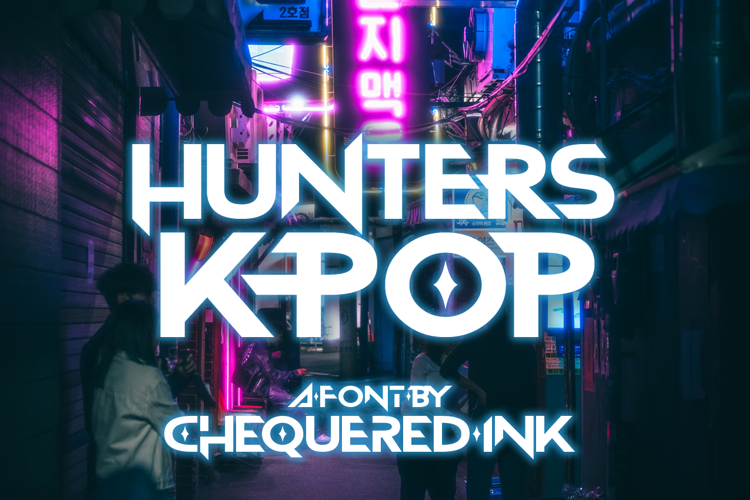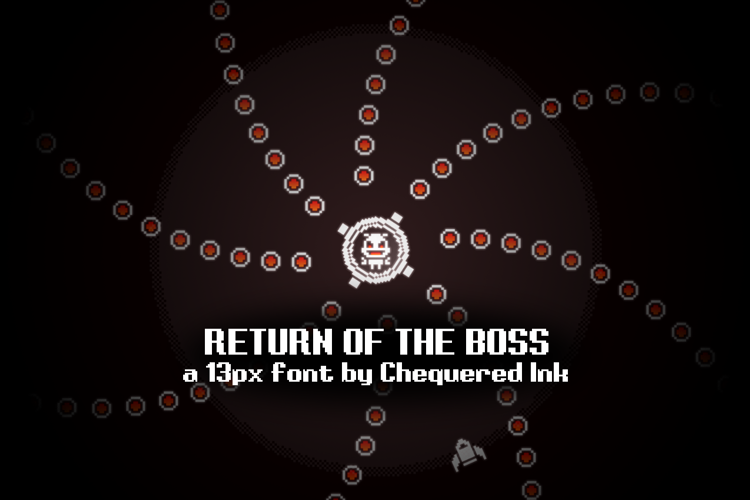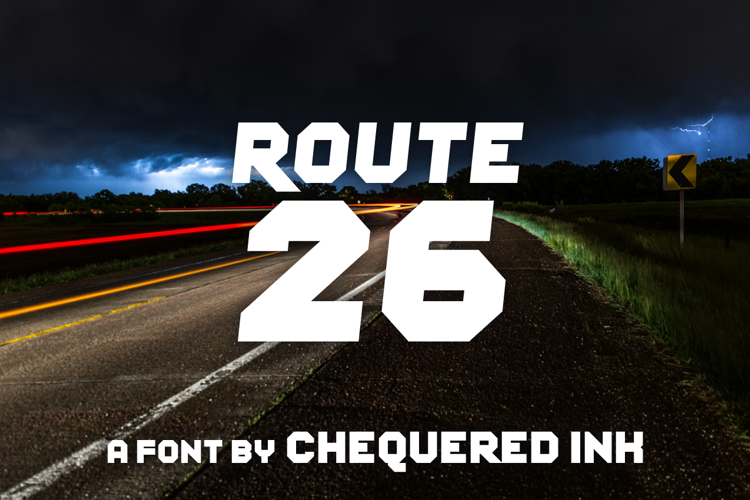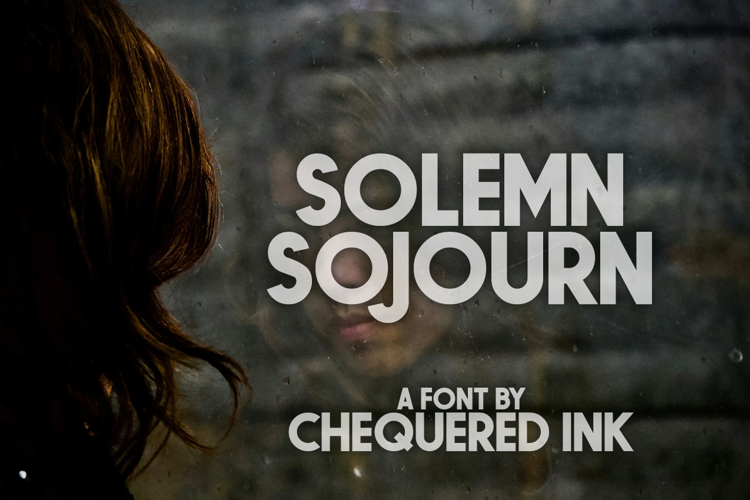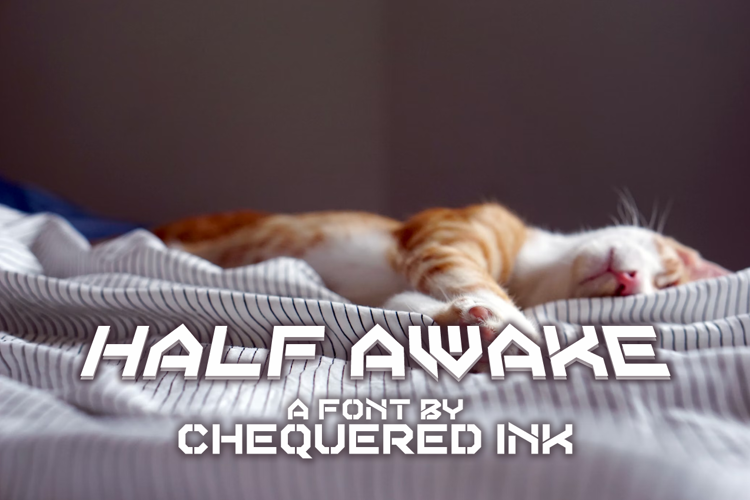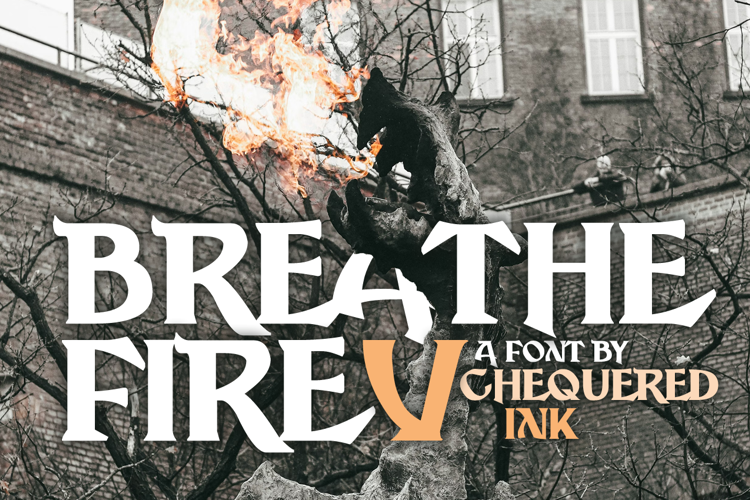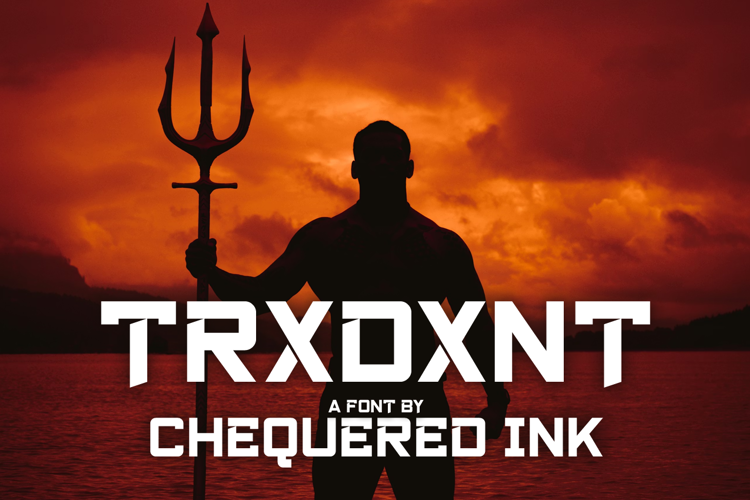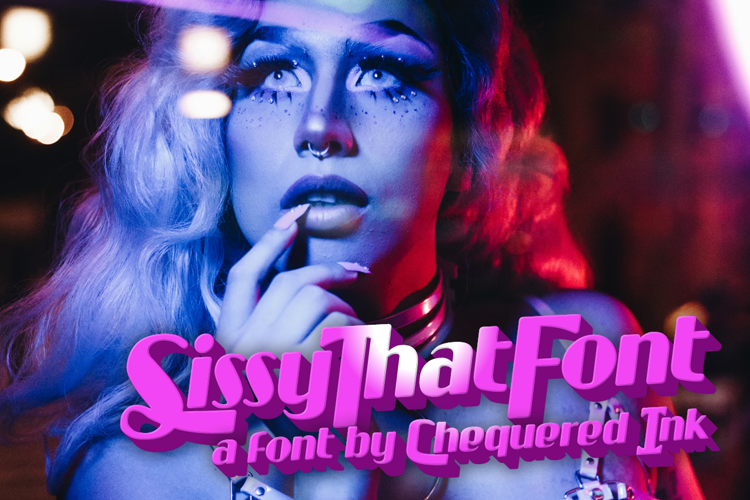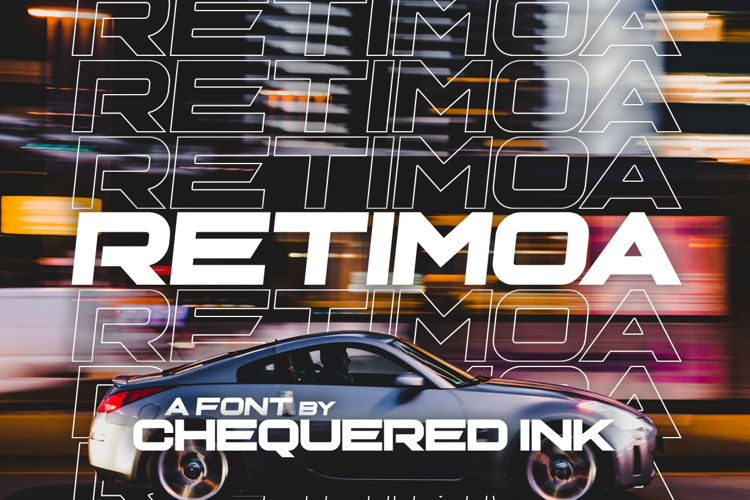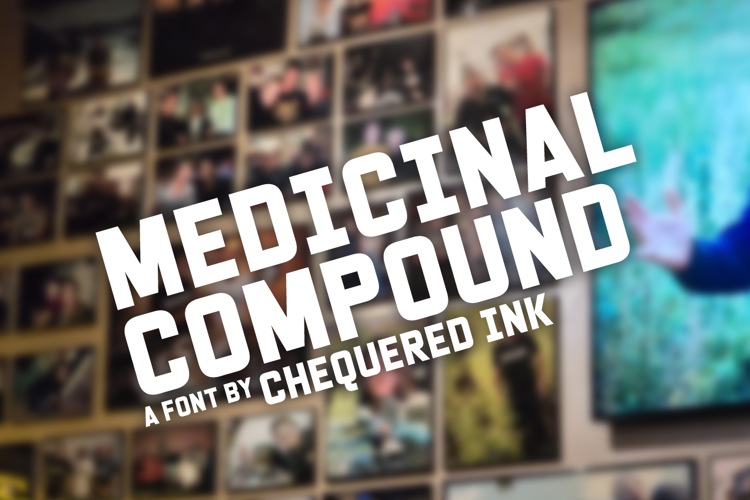
10 New Fonts Added To Our All Fonts Pack
1. Hunters K-Pop
A not-very-subtle tribute to a very popular animation. That's the most we'll say, if you know you know!
2. Return of the Boss
To celebrate the upcoming 10th anniversary of our game Gyro Boss, we created this brand new pixel font for use in your own games.
3. Route 26
A chonky font with bevelled corners, great for use on road signs in the background of your projects - hence the name.
4. Solemn Sojourn
A chunky all-caps poster font, intended for headlines and logos rather than long-form text. The font itself is not necessarily solemn, feel free to use it in happy stuff.
5. Half Awake
A very spiky, stylised stencil font. It probably has some specific uses in a sort of military or sci-fi application.
6. Breathe Fire V
The fifth in our series of gothic / medieval fonts with a modern twist. Breathe Fire V builds on the formula of the other four fonts, giving you more variety within this style range.
7. Trxdxnt
Is it pronounced TRIDENT or TRCKSDCKSNT. Simply put, we don't care, we just wanted to show off the cool characters with little notches in them.
8. Sissy That
A tribute to the art of drag, we wanted to create a font with that soft retro vibe that's come to be associated with the drag community.
9. Retimoa
A pretty straight forward techno font that would be great for use on an electronic music album cover or the logo for your latest gadget.
10. Medicinal Compound
The most recent of our font creations, this is a pretty simple all-caps sans-serif font for making headlines and other bold statements.